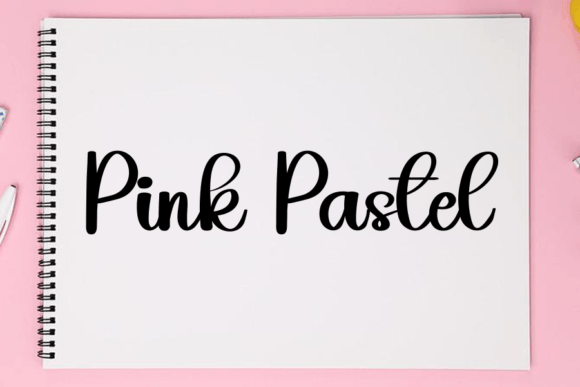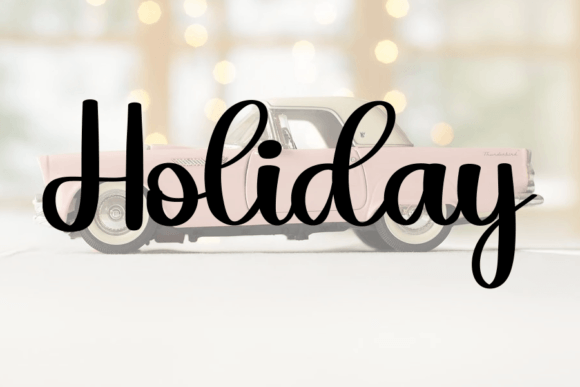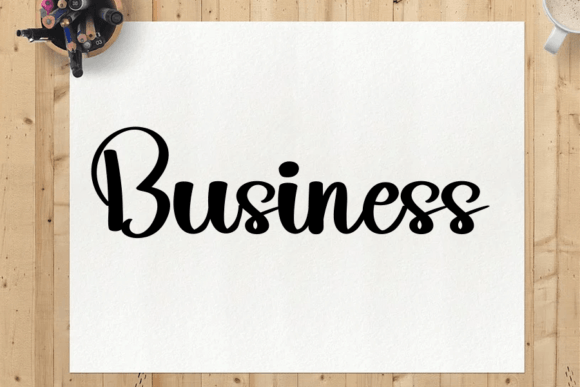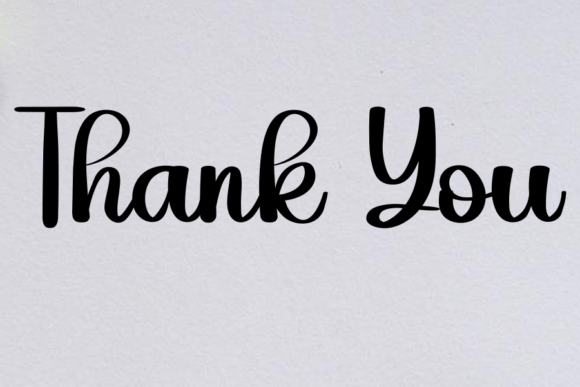
Bucin Font
About Bucin Font
“Bucin” is a font that radiates style and sophistication, designed in an incredibly elegant script style. Its exquisite letterforms and graceful strokes make it a perfect choice for a wide array of design projects, including wedding invitations, thank you cards, quotes, greeting cards, logos, business cards, and any other design that requires a touch of handwritten elegance.
**Stylish and Elegant Script**: “Bucin” stands out with its stylish and elegant script design, featuring fluid and intricate strokes. The font’s sophistication is evident in its graceful letterforms, making it a statement font for projects that demand a high level of refinement and class.
**Perfect for Special Occasions**: Particularly well-suited for special occasions, “Bucin” enhances the visual appeal of wedding invitations and thank you cards. Its elegant script adds a touch of luxury and sophistication, setting the tone for upscale events and celebrations. The font’s timeless elegance creates a sense of grandeur and exclusivity, making it ideal for premium stationery designs.
**Versatile and Multifunctional**: Beyond its use in invitations and cards, “Bucin” is versatile and multifunctional. It seamlessly integrates into various designs, adding a touch of sophistication to quotes, greeting cards, logos, business cards, and other branding materials. The font’s elegant script elevates the overall professionalism and visual impact of any project.
**Handwritten Charm with Graceful Details**: “Bucin” combines the charm of handwritten script with graceful and intricate details, creating a luxurious and captivating visual experience. Its combination of style and elegance adds a touch of glamour to designs, ensuring that it leaves a lasting impression on viewers.
In summary, “Bucin” is not just a font; it’s a symbol of style and sophistication. Its stylish and incredibly elegant script design makes it a standout choice for special occasions and premium designs. Whether used in wedding invitations or business branding, “Bucin” enhances the overall elegance of the project, ensuring a timeless and luxurious presentation. Let “Bucin” be the embodiment of grace and refinement in your designs, adding a touch of opulence to every element it graces.